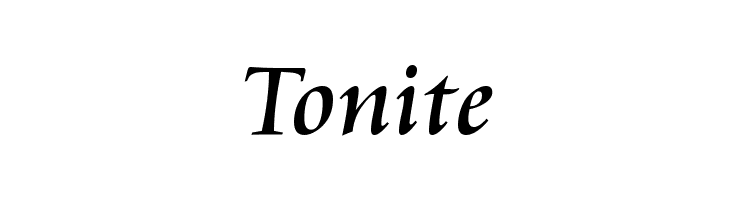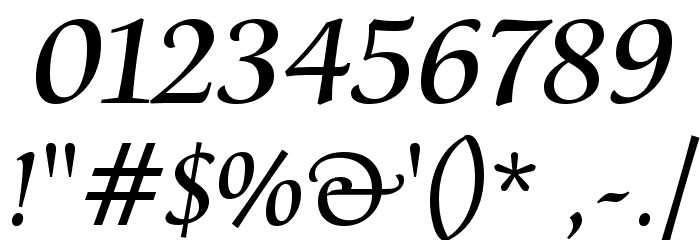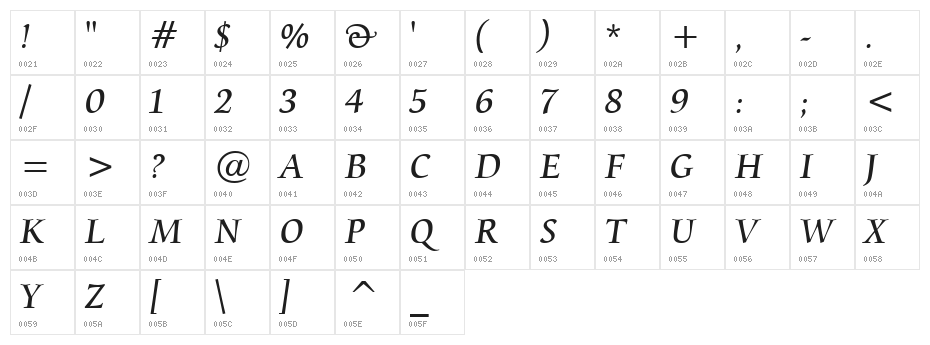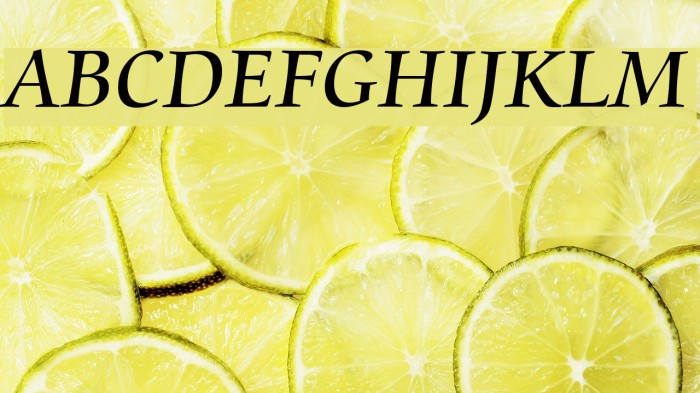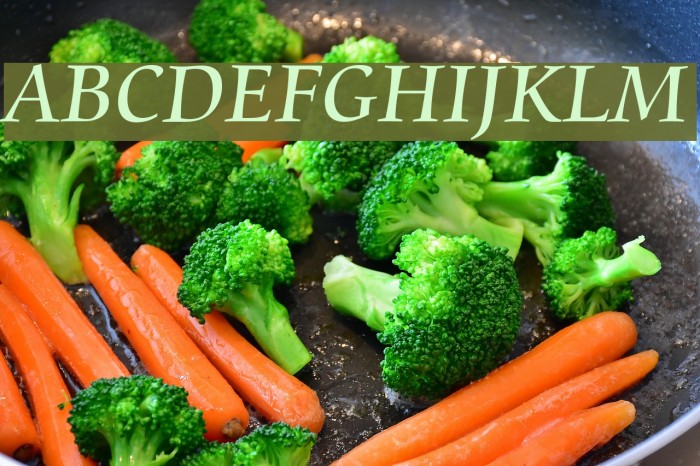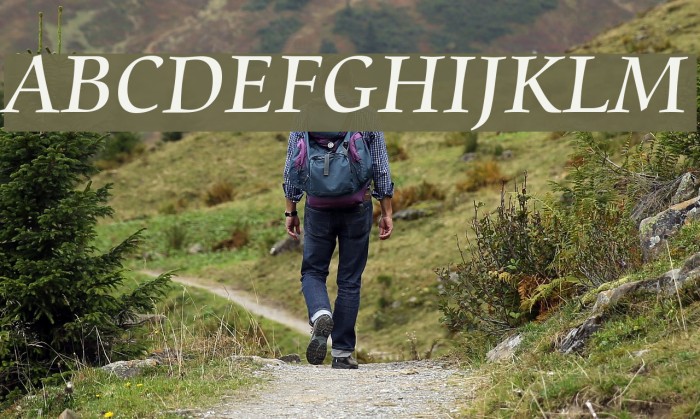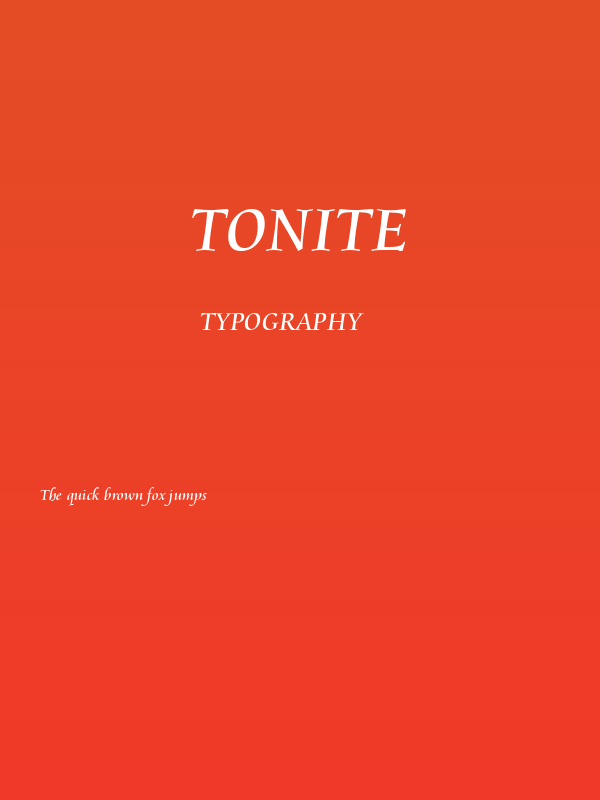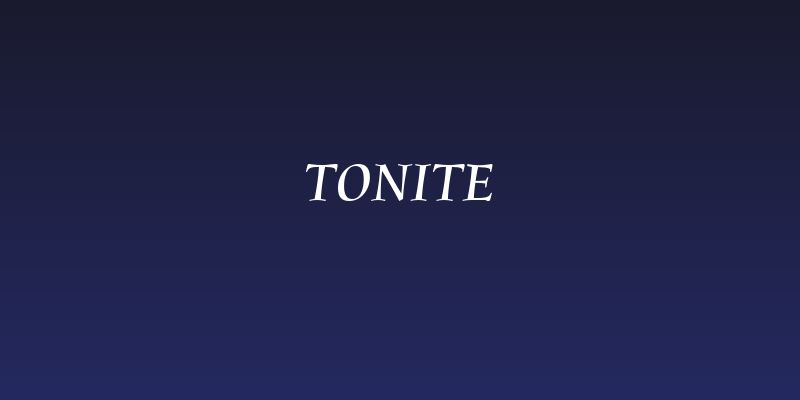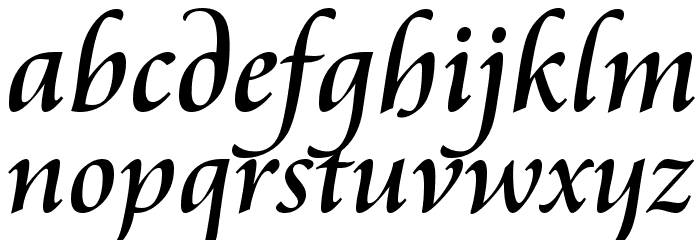
Tonite Font
Tonite Description
This font exhibits a classic and elegant style, characterized by its flowing, cursive-like strokes and slight slant, giving it a sophisticated and timeless appearance. The uppercase letters are tall and graceful, while the lowercase letters maintain a consistent fluidity, enhancing readability. The numerals are well-proportioned, complementing the overall aesthetic. Special characters are designed with the same attention to detail, ensuring a cohesive look across all glyphs. This font's design is ideal for projects that require a touch of elegance and formality.
| Use Case | Headlines, Invitations, Branding |
| Proposed Projects | Ideal for wedding invitations, formal event programs, luxury branding, and elegant editorial design. |